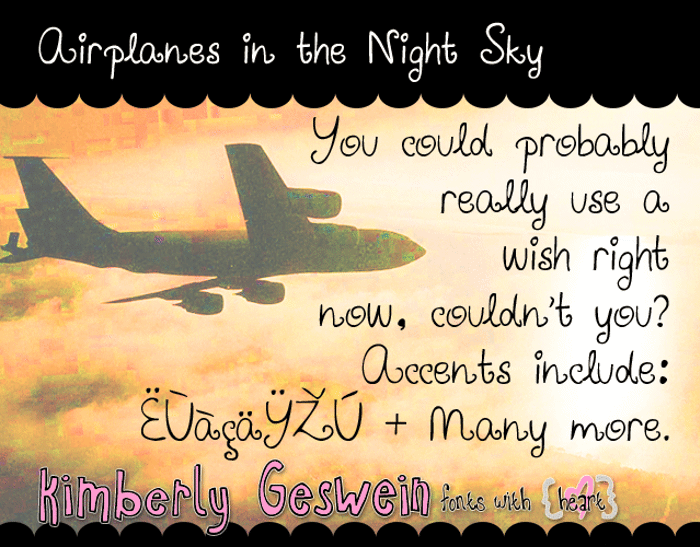
Airplanes in the Night Sky Font
absolutely adorable! cute in the best of ways! <3
I really love this one, and the name is so cute! 😄
Beautiful!
JUST LOVE THIS FONT!!!!
beautiful font!